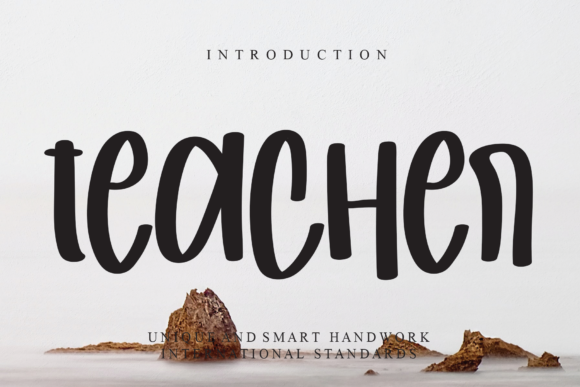
About Teacher Font
Teacher is a beautiful and cursive handwritten font. With stylish characters and an authentic vibe, this typeface would make an excellent addition to your fonts library!